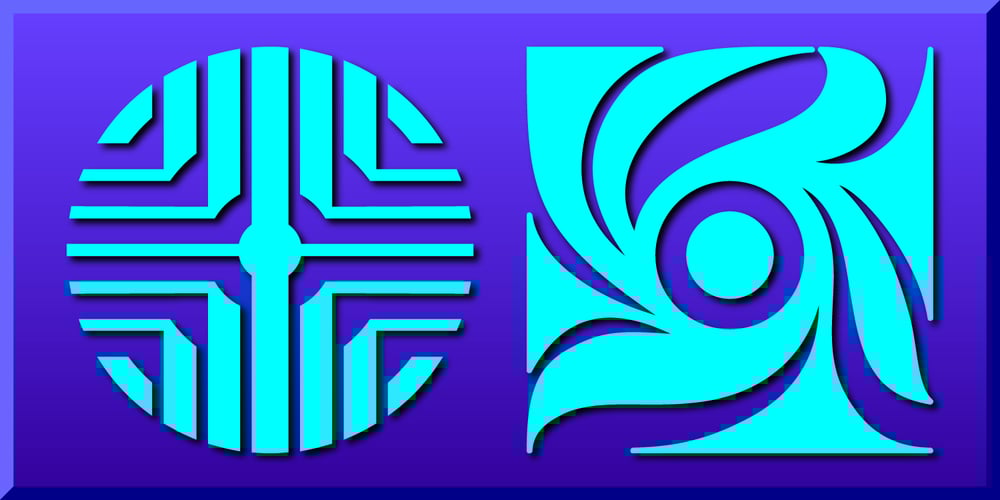
Oriental Ornaments Font Family was designed by Gerald Gallo and published by Gerald Gallo. Oriental Ornaments contains 1 styles and family package options. Oriental Ornaments was inspired by the ancient design motifs of the far east. There is an assortment of 85 ornaments located under the character set and shift + character set keys.